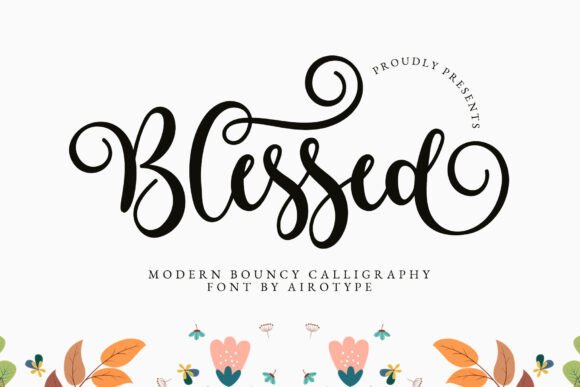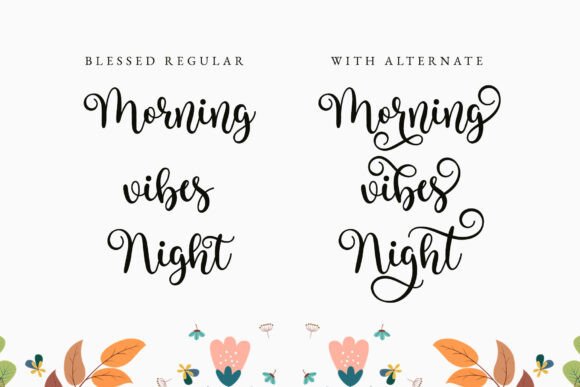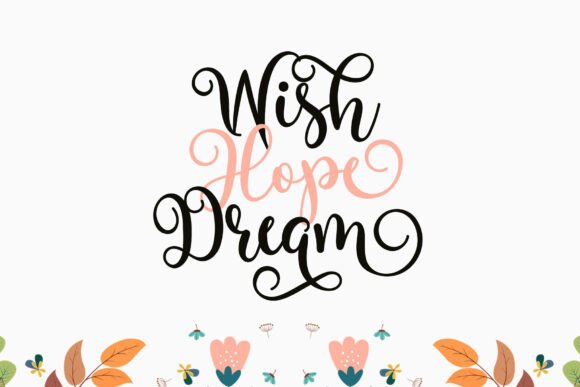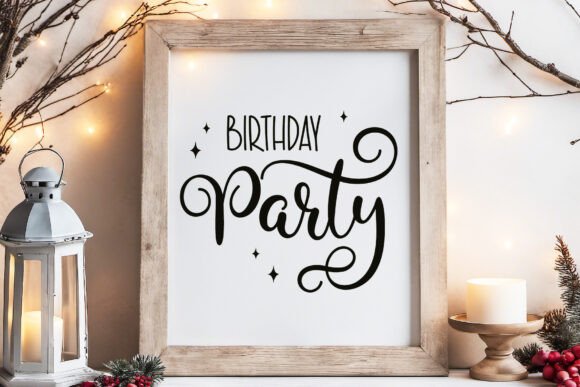
Blessed Font
Blessed is script calligraphy script font with modern vibes. This font is bouncy and swirl with tons of extra alternates.This font is pretty for design that needs modern handwritten touch, such as wedding design, invitation, birthday, t-shirt design, crafting, sticker, sublimation, and others.